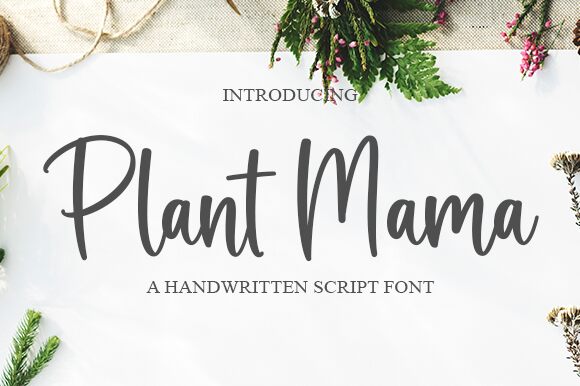
Plant Mama
Plant Mama is a charming and whimsical handwritten font designed by Graphix Line Studio. With its semi-light weight, it brings a playful and delicate touch to any project. Perfect for creating invitations, greeting cards, or designing logos for businesses in the gardening or eco-friendly industries. The handwritten style adds a personal touch to any branding project, while the semi-light weight ensures readability on both print and digital platforms. Plant Mama is also ideal for creating social media graphics, blog titles, and packaging designs that need an organic feel. Bring your projects to life with Plant Mama!